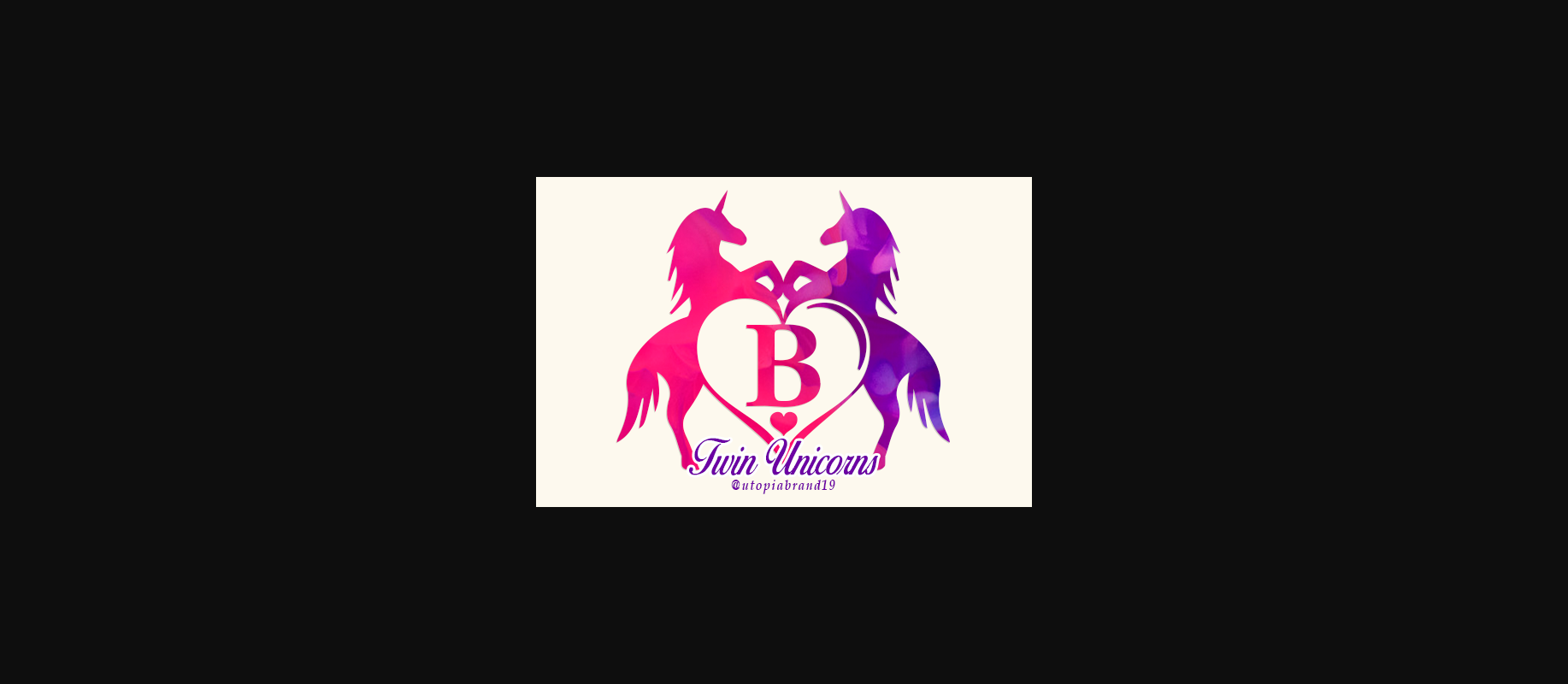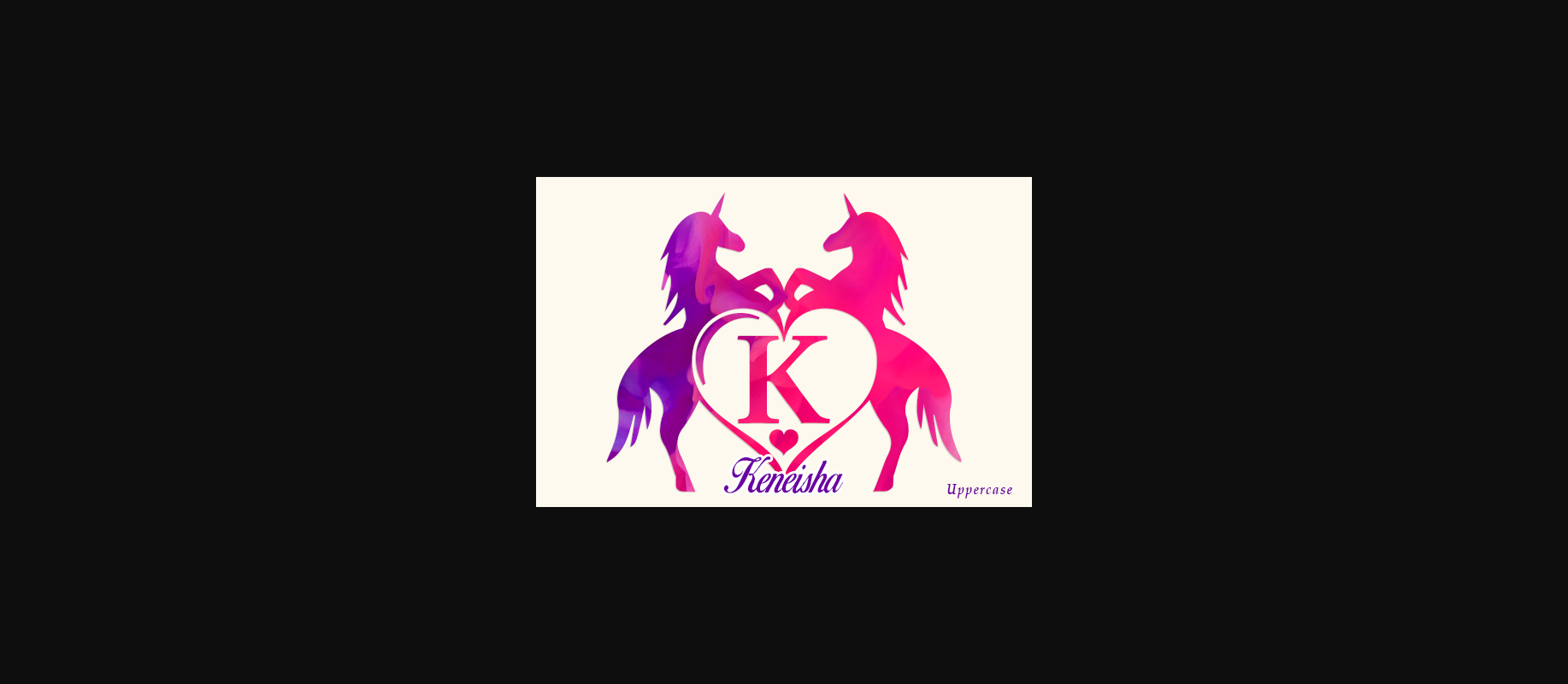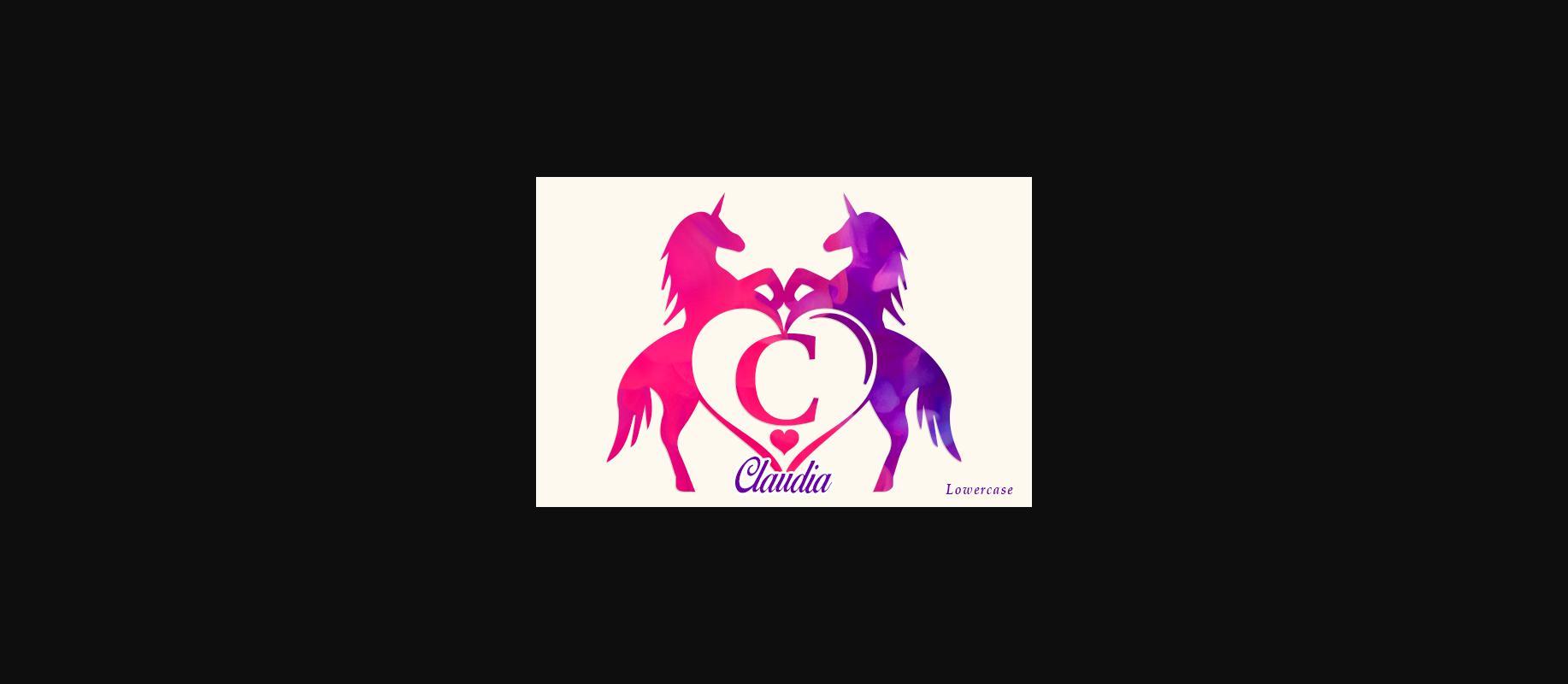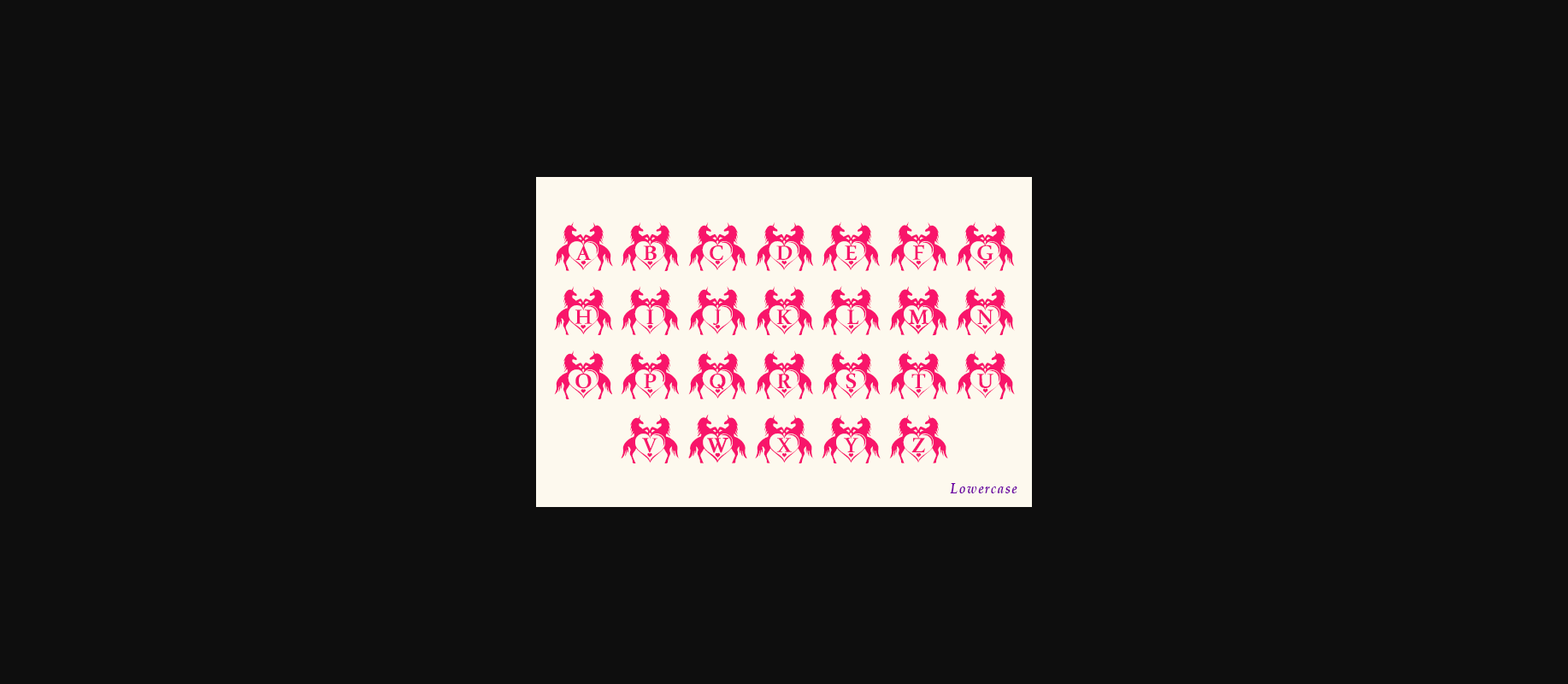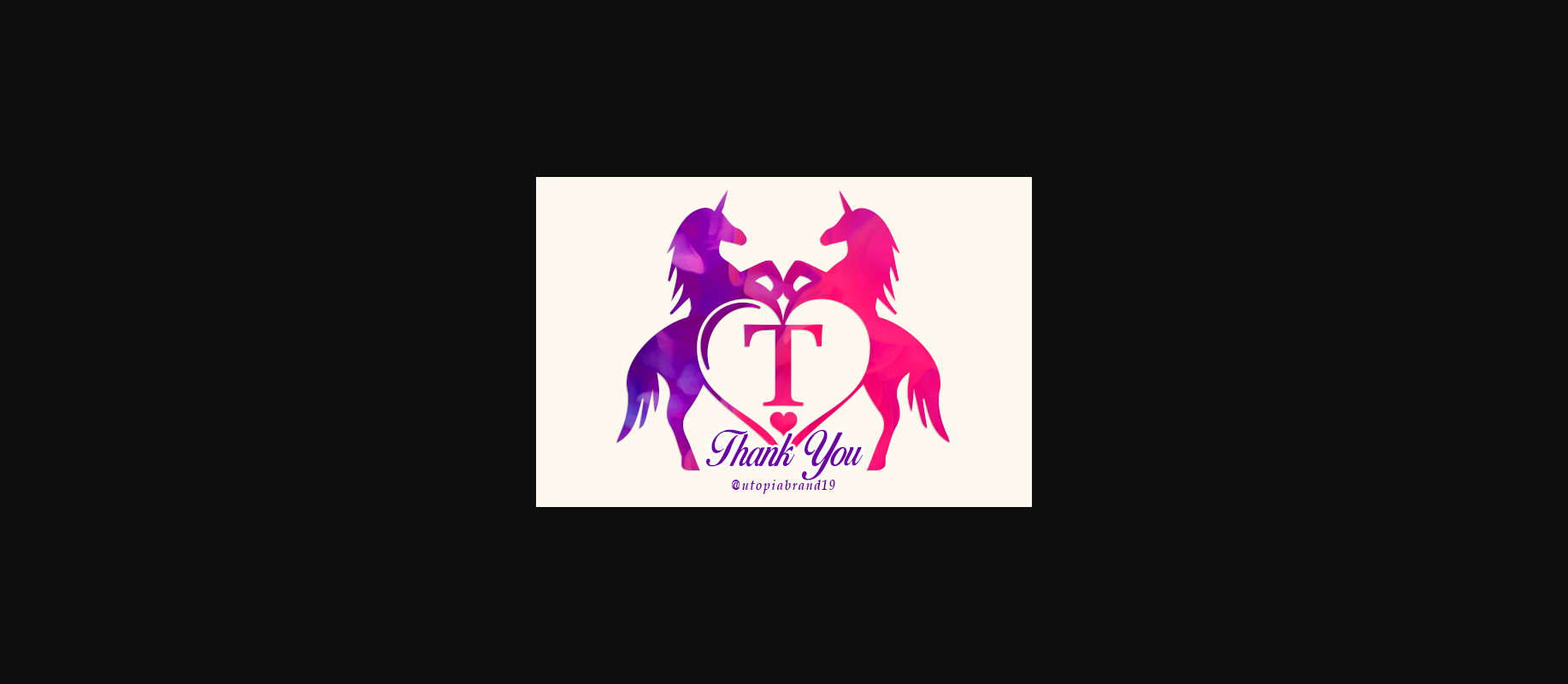
Twin Unicorns and Heart Monogram Font Font
About Twin Unicorns and Heart Monogram Font
Twin Unicorns and Heart Monogram is an elegant decorative font, featuring lovely ornaments. Fall in love with its authentic feel and use it to create beautiful stationary art, eye-catching social media posts, and cute greeting cards.